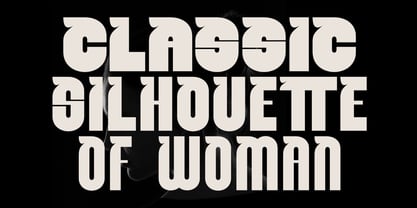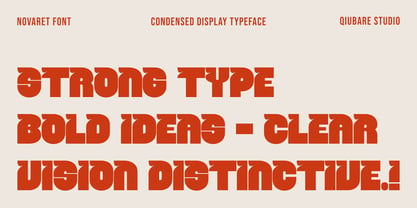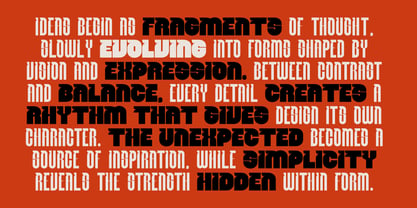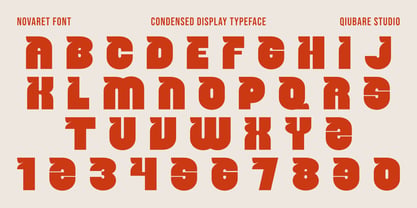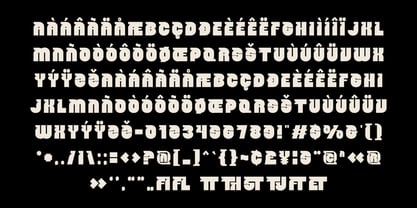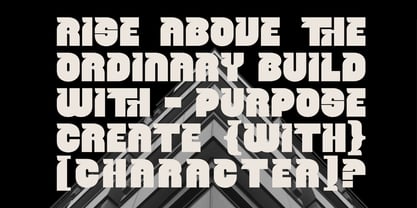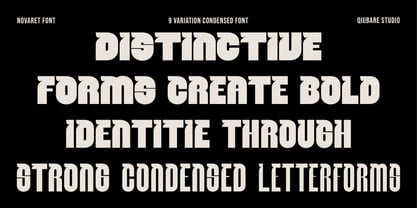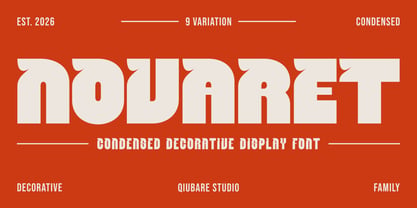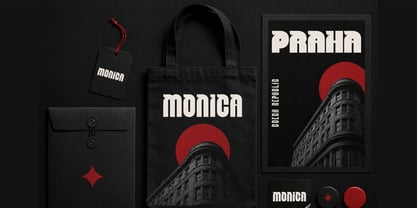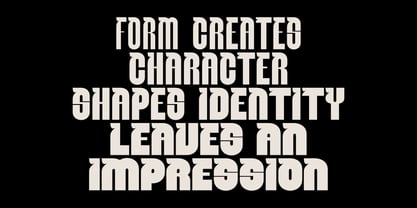
Novaret
by Qiubare Studio
The Novaret Font Family was designed by Michael Everson and published by Qiubare Studio. Novaret contains 9 styles and family package options. More about this family
NOVARET is a bold condensed decorative display typeface designed to bring strong character, distinctive shapes, and visual impact to your typography.
Built around a condensed structure with expressive decorative details, Novaret combines a powerful display presence with a unique lettering personality. Its compact proportions make it especially effective for large headlines, posters, titles, logos, editorial layouts, packaging, apparel graphics, and other attention-grabbing designs.
The distinctive cuts and ornamental details give Novaret a recognizable visual identity while maintaining a strong and readable silhouette at display sizes.
✨ Perfect for:
• Brand Identity & Logo Design
• Posters & Promotional Graphics
• Editorial & Magazine Headlines
• Fashion & Apparel Design
• Packaging & Product Labels
• Album & Music Artwork
• Event Graphics
• Signage & Titles
• T-Shirt & Merchandise Design
• Social Media Graphics
• Editorial Covers
• Creative Advertising
• Typography-Based Artwork
✨Font Features:
• 9 Variations
• Condensed Display Typeface
• Bold & Strong Letterforms
• Decorative Character Details
• Uppercase & Lowercase Characters
• Numerals & Punctuation
• Extended Character Set
• Multilingual Character Support
• Distinctive Display-Lettering Style
• Suitable for Large Headlines & Typography Artwork
Novaret is made for designers who want typography to become part of the visual identity rather than simply supporting the layout.
From powerful headlines to distinctive logos and statement graphics, Novaret brings a bold condensed character to your creative projects.
Designers: Michael Everson
Foundry: Qiubare Studio